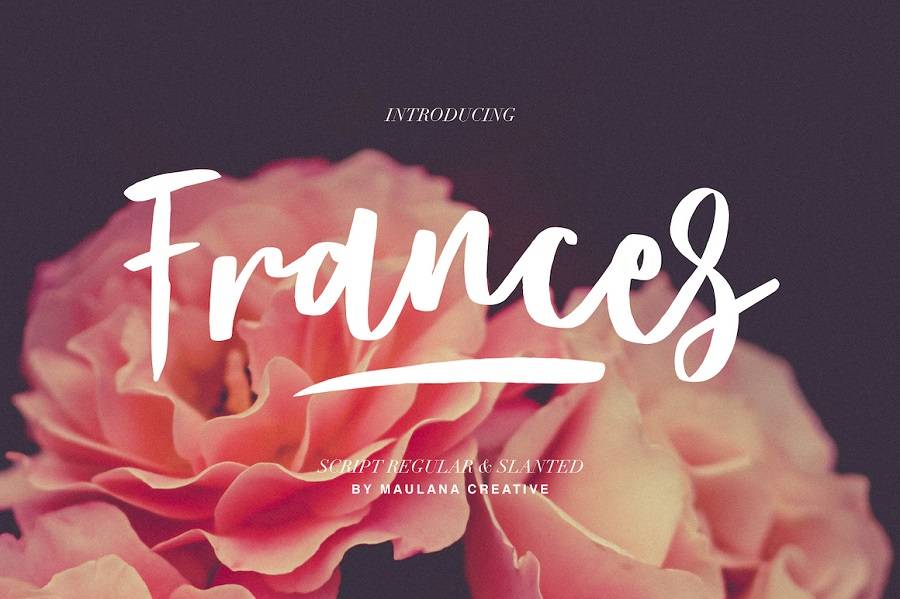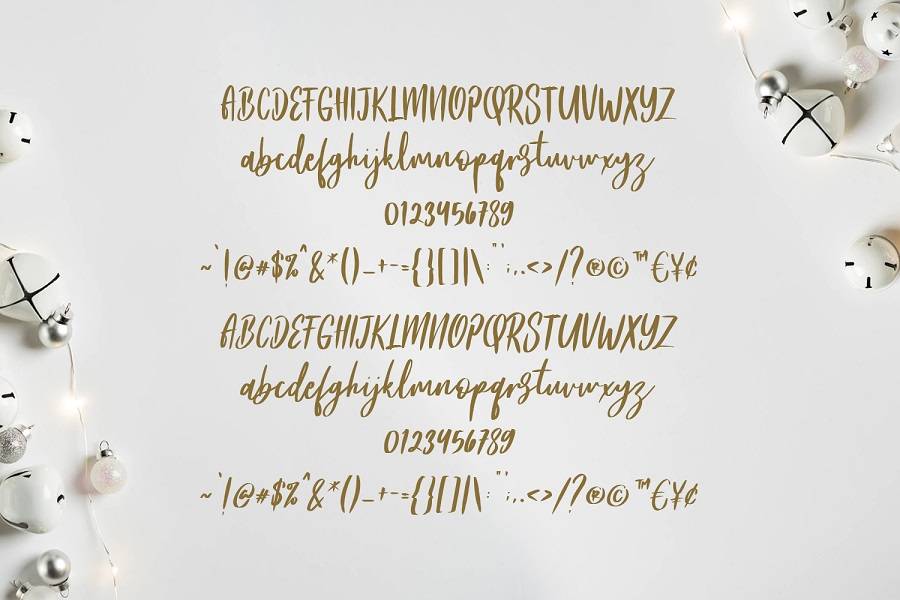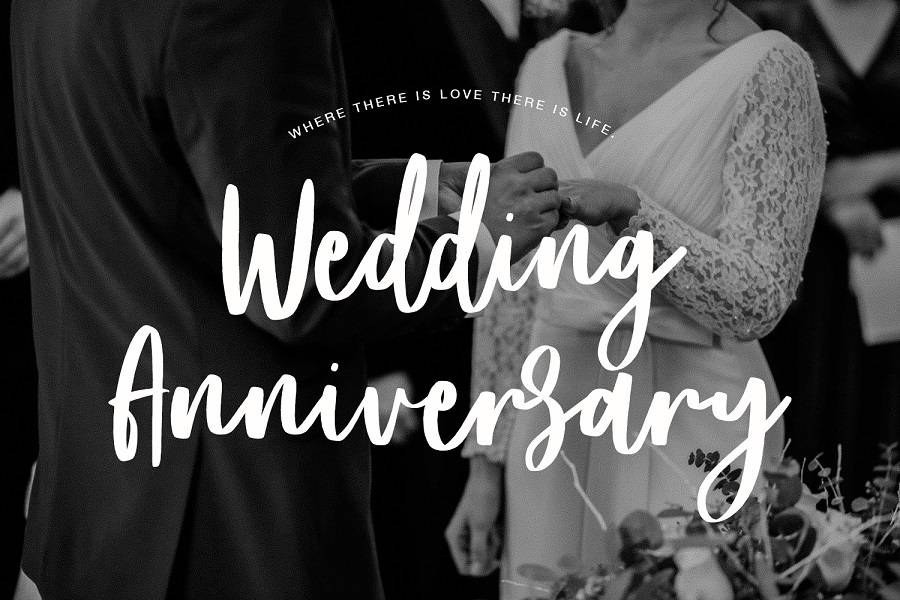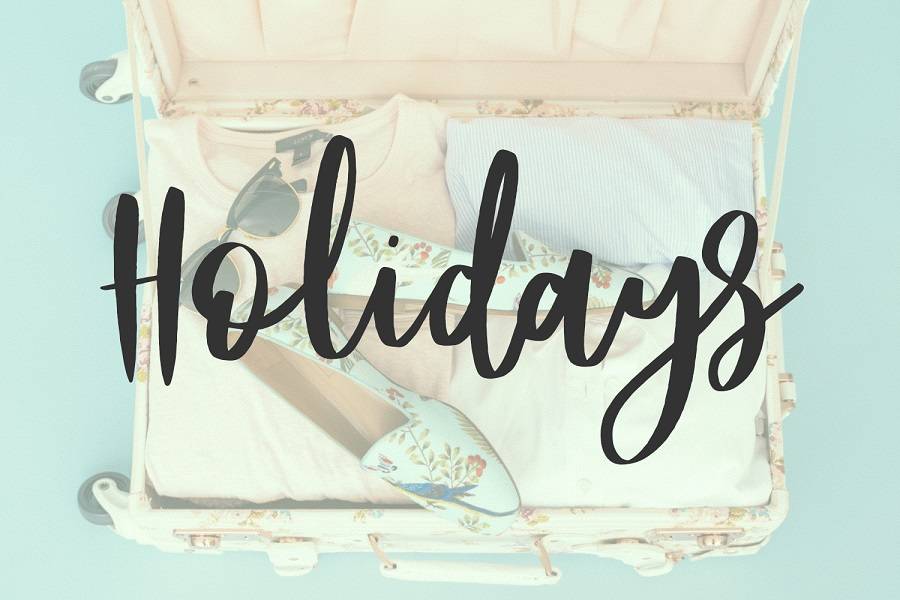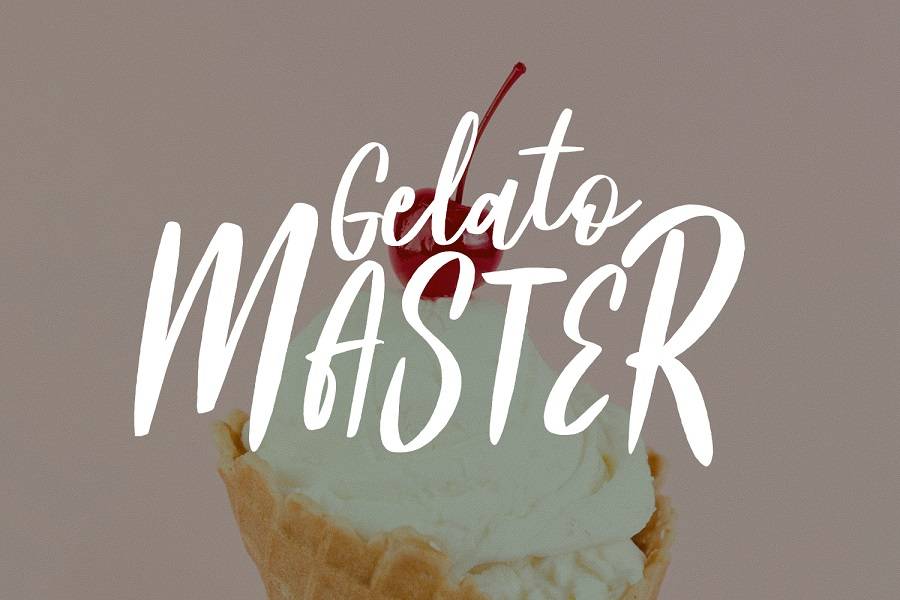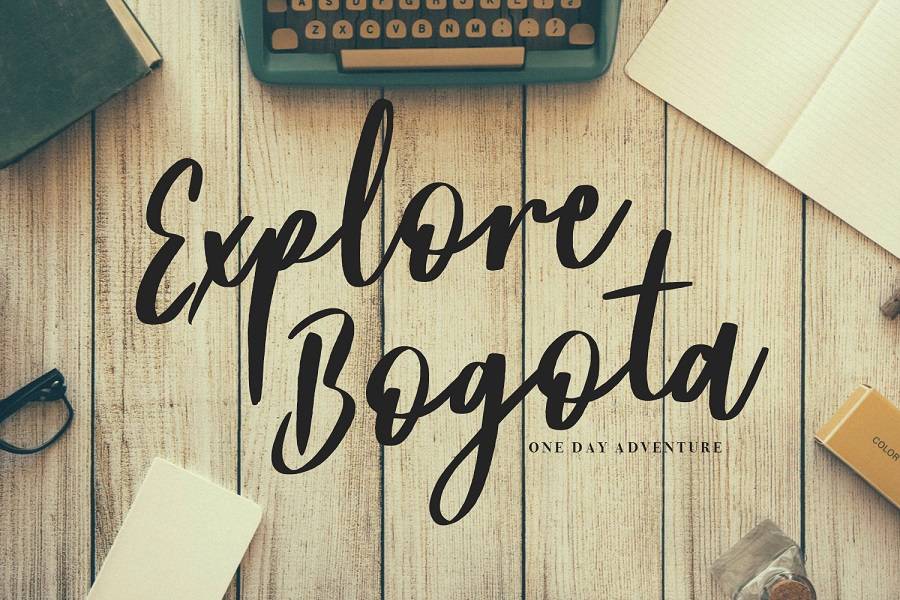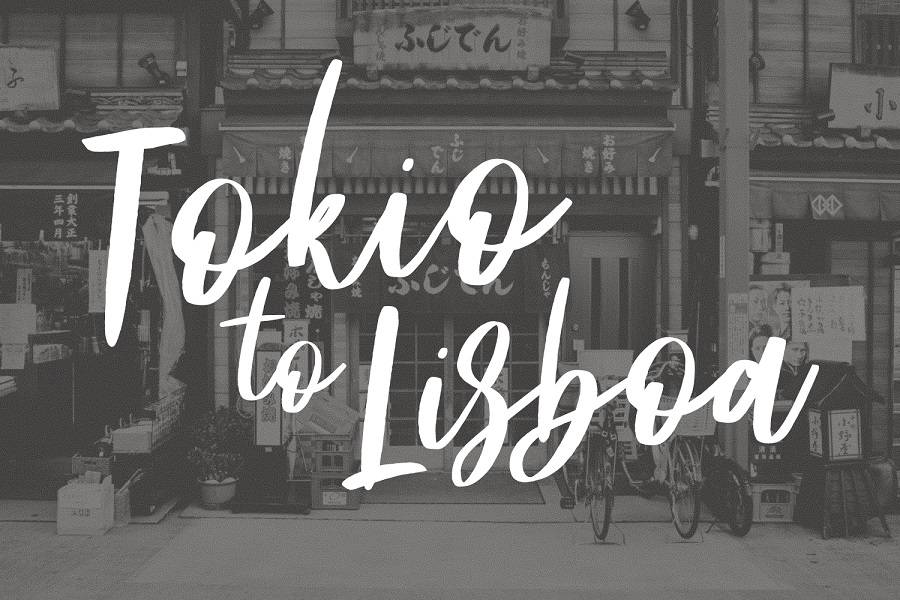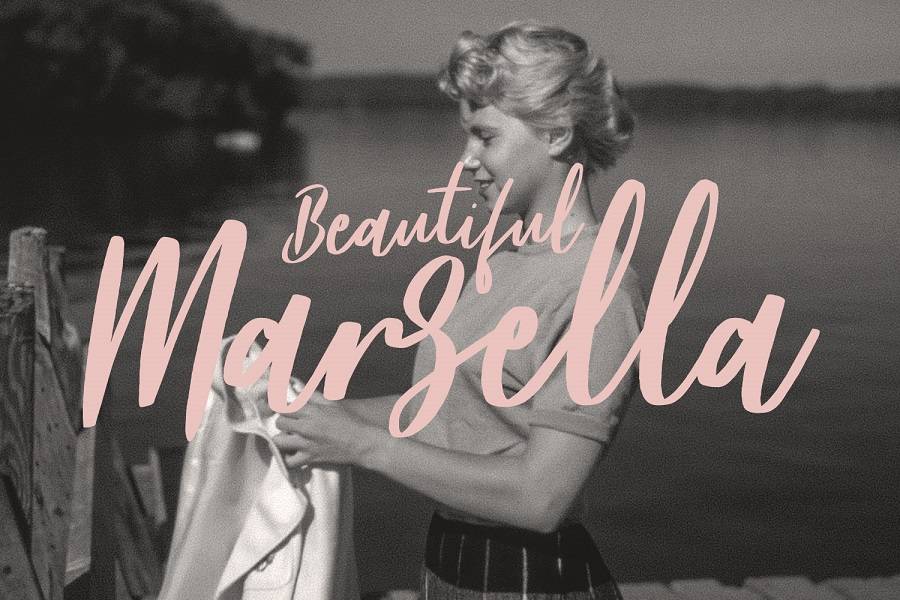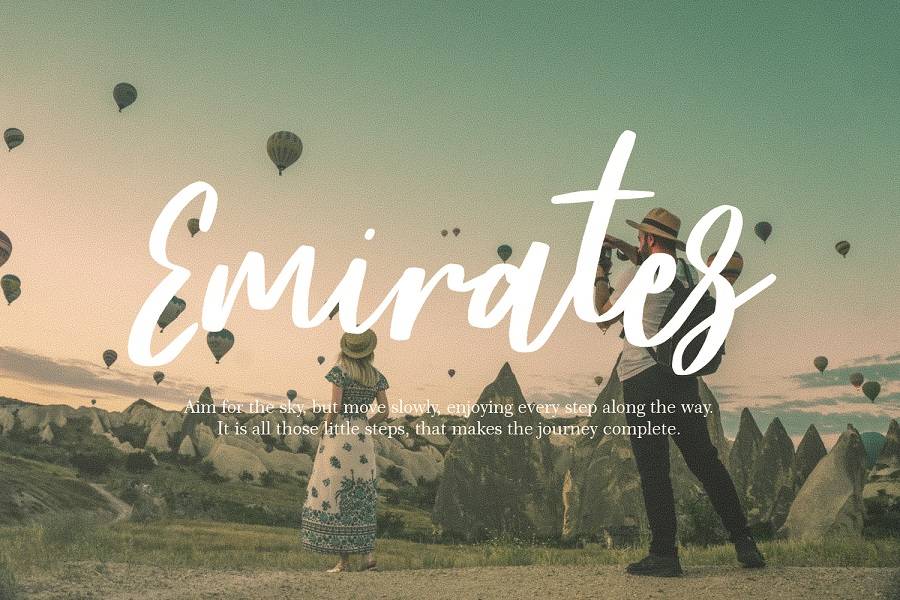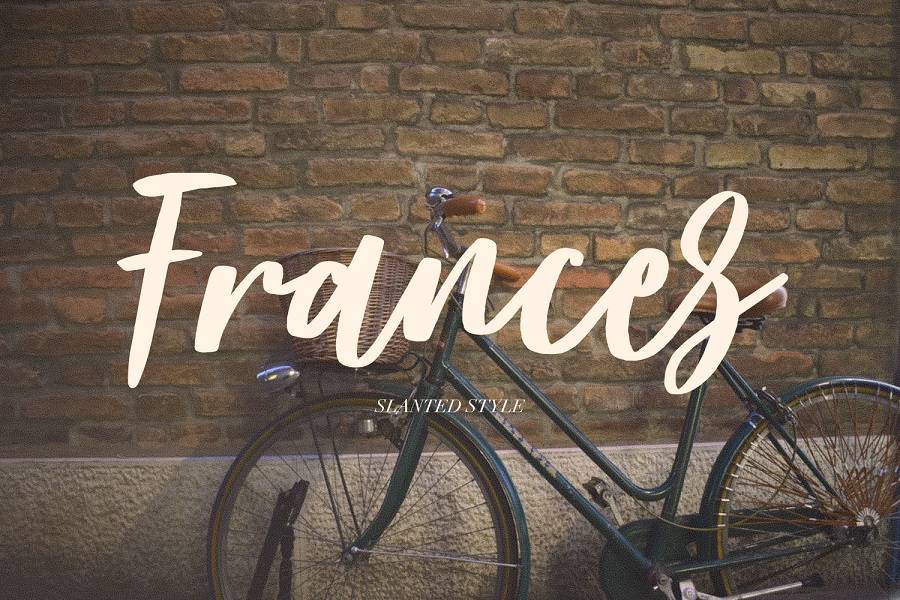
Frances Modern Script is a lively and elegant handwritten font with smooth, flowing strokes and a natural, casual feel. Its balanced weight and tall, slender letterforms make it perfect for creating stylish branding, invitations, and creative projects that need a personal yet modern touch. This font works wonderfully in headlines and logos where a friendly, approachable, and artistic vibe is desired.
Frances Modern Script Font
About Frances Modern Script Font
| Font family | Frances Modern Script Font |
| Release date | 2019-07-08 |
| Designer | MaulanaCreative |